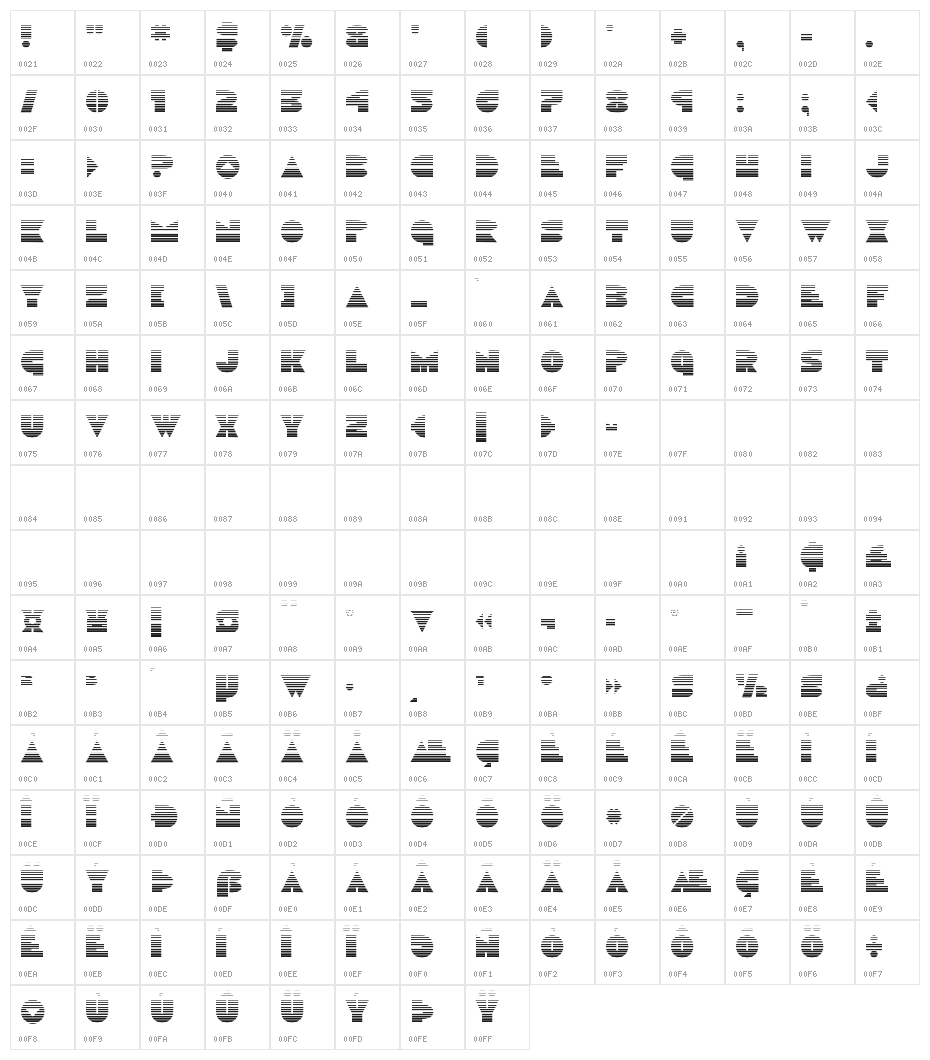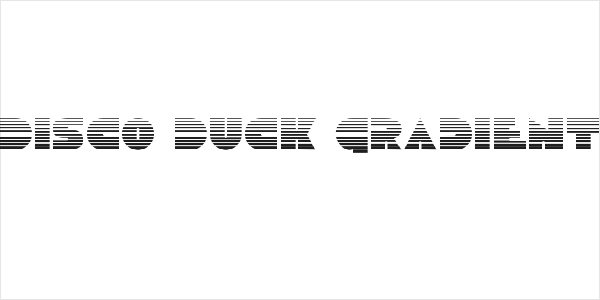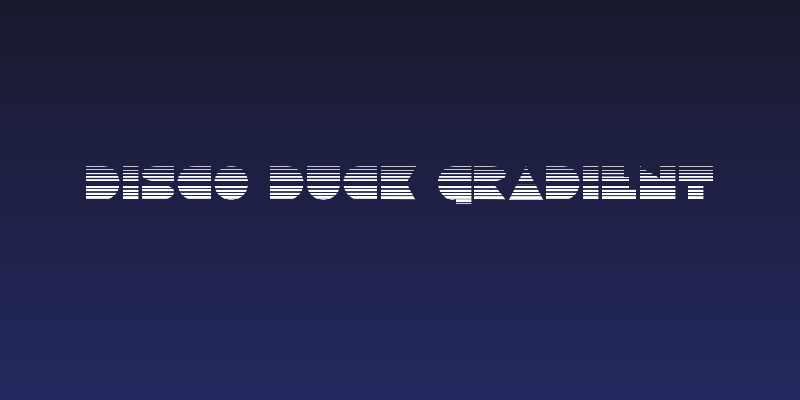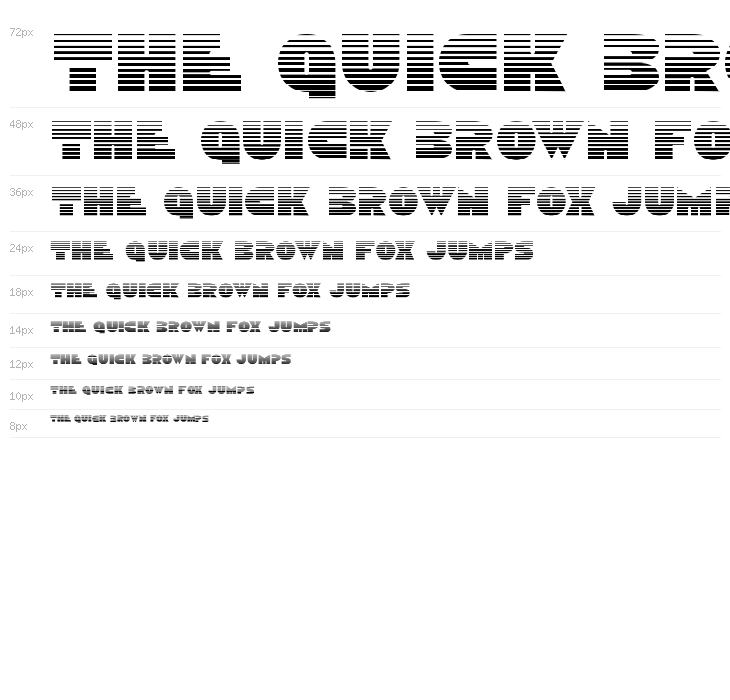
Disco Duck Gradient Font
Disco Duck Gradient Description
This font features a unique, striped pattern that gives it a distinct, modern look. Each character is composed of horizontal lines that create a sense of movement and rhythm, reminiscent of a disco aesthetic. The bold and geometric shapes are eye-catching, making it ideal for display purposes. The uppercase and lowercase letters maintain a consistent style, ensuring readability while adding a playful touch. Numbers and special characters are also designed with the same striped effect, providing a cohesive appearance across all elements.
| Proposed Projects | Ideal for music event posters, retro-themed branding, and eye-catching headlines. |